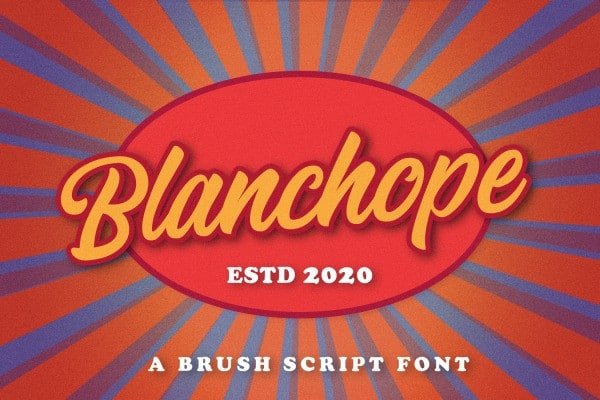
Blanchope Font
blanchope Font
Blanchope Script Font is a sophisticated & unique, hand-made script font. allow you to create flowing hand-lettering. It is perfect for blogging, social media, branding, product packaging, wedding invitations, branding, headlines, signage, labels, signature, book covers, posters, quotes and more.